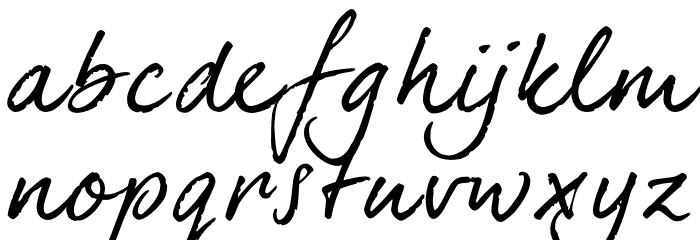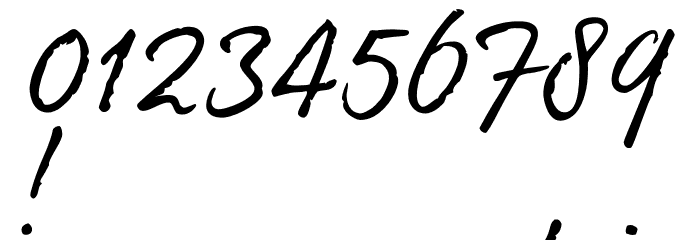
dearJoe7TRIAL Font
This font exudes a dynamic and fluid style, characterized by its cursive script that mimics the natural flow of handwriting. The letters are elegantly connected, creating a seamless and continuous appearance. The uppercase letters are bold and slightly slanted, adding a sense of movement and energy. The lowercase letters maintain a consistent flow, with smooth curves and loops that enhance the handwritten feel. Numbers are clear and legible, maintaining the same stylistic elements as the letters. The special characters are well-integrated, matching the overall aesthetic. This font is perfect for projects that require a personal touch, such as invitations, greeting cards, or branding materials that aim to convey elegance and sophistication.
A dynamic cursive script font with a fluid, handwritten style.
- Font: dearJoe7TRIAL
- Proposed Projects: Ideal for wedding invitations, personal branding, greeting cards, and elegant stationery.
- Category: Script
- Overall Style: Elegant and sophisticated
- Use Case: Invitations, Branding, Greeting Cards